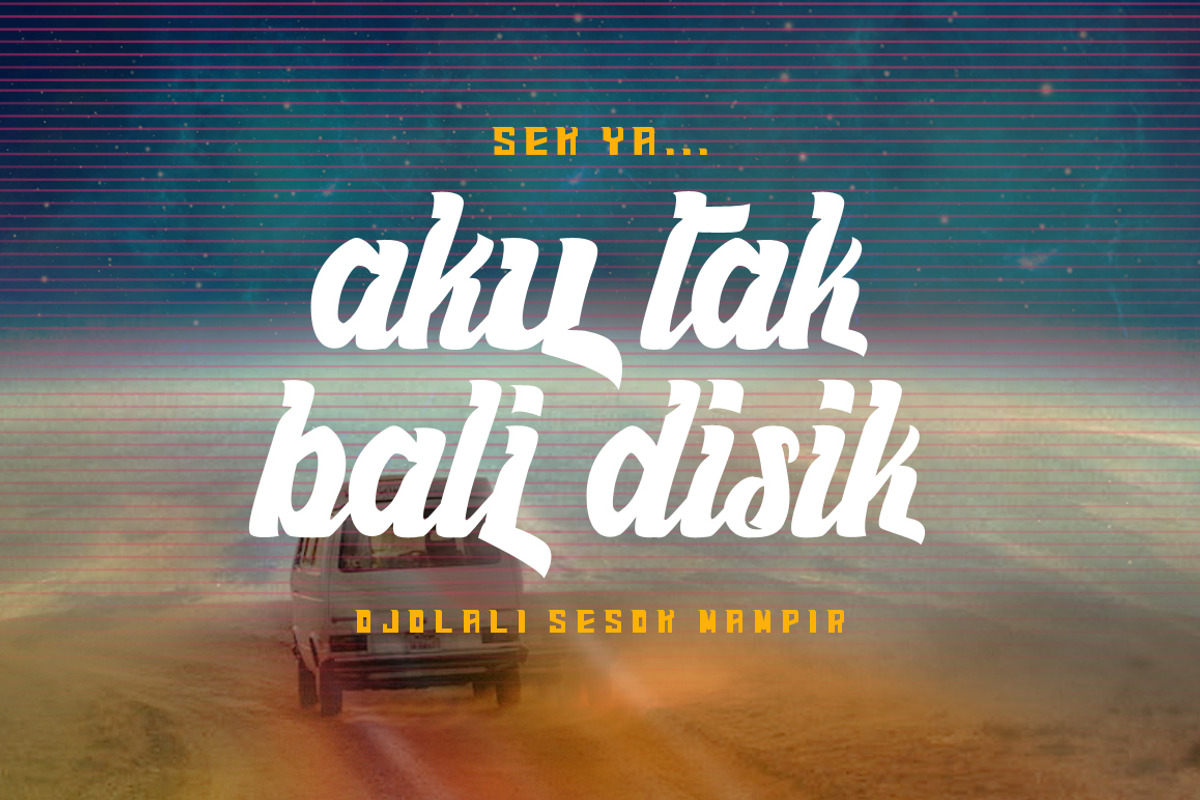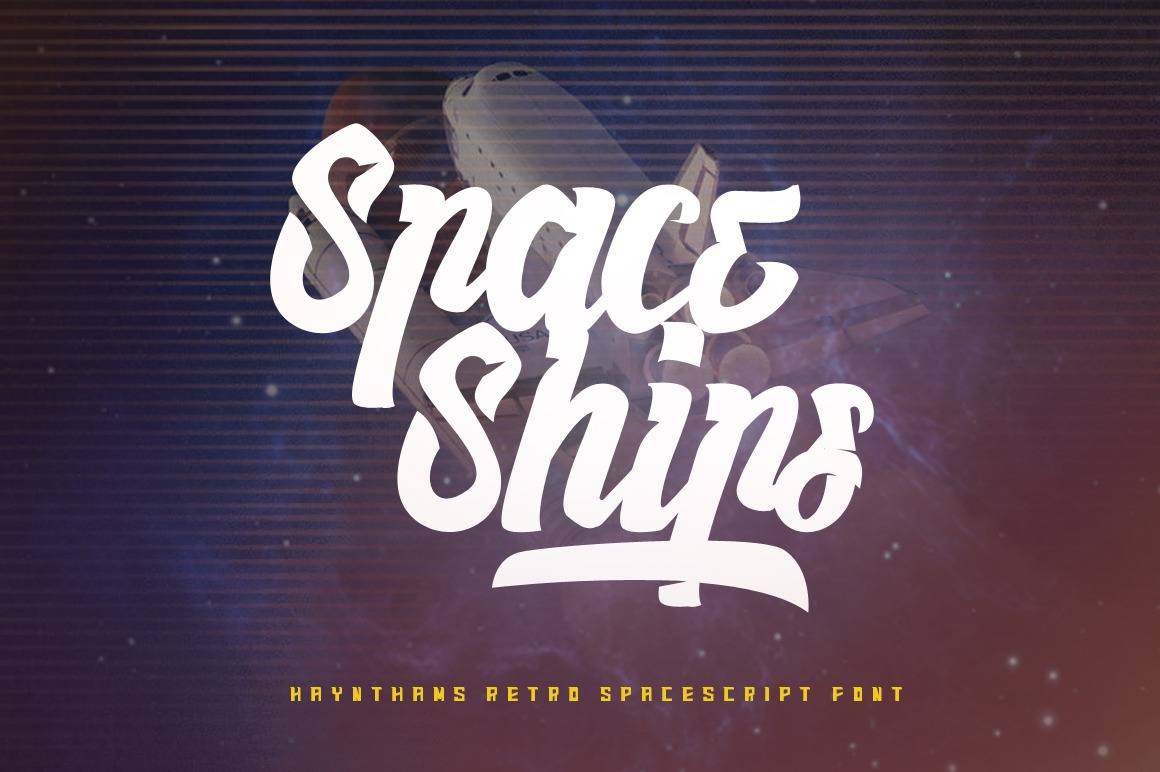
Haynthams Spacescript Font (2 in 1)
Introducing, "Haynthams Spacescript" font, after a long time not uploading new item, finally Ovoz Creative start to creating new font.
with Retro synthwave style and aerospace feel, this font reflect the great of new era.! suitable for cover albums design, tshirt, banner or ETC!
Because this font has more advantages, such as special opentype, alternate. and so many glyph option, so you wont confuse to choose word or letter. In a few words, this font has adventage more unique and unusual character.
Available into uppercase, lowercase, symbol, numeral, punctuation and including so many variant of glyph. Also suitable to t-shirt, jacket, hat, or everything related about merchandise.
This font has superiority that may not all font get, for example:
- stylistic alternates.
- ligatures.
- Unique character set.
- Fullset of punctuation.